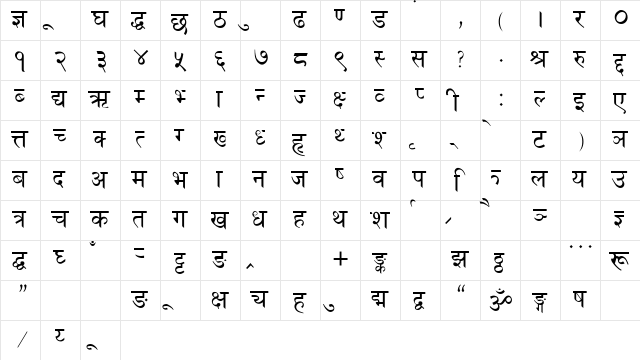
FONTASY_ HIMALI_ TT NORMAL
FONTASY_ HIMALI_ TT offers clean, dependable letterforms without strong stylistic allegiance, making it a practical choice for designers who need flexibility.